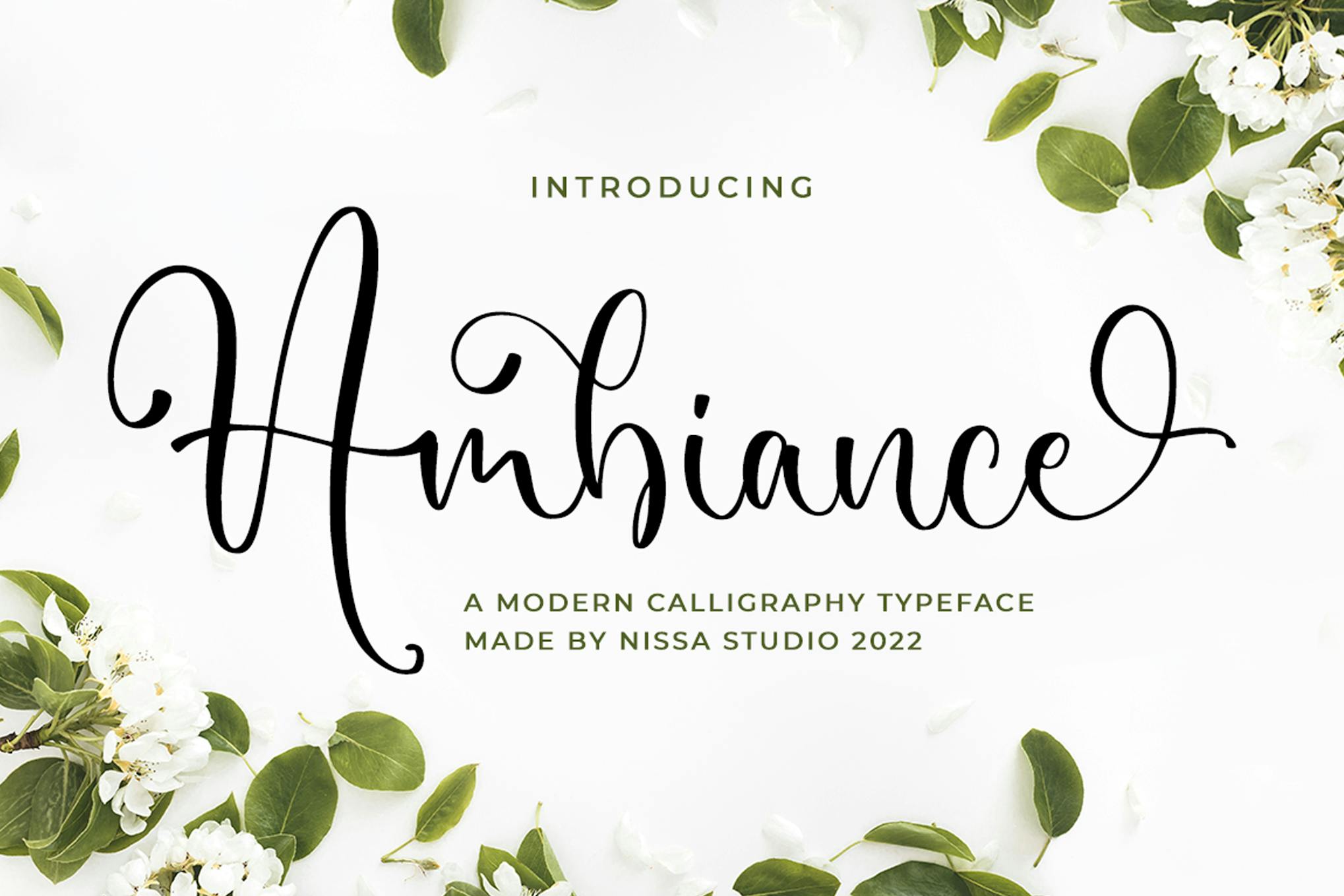
Ambiance - Wedding Font
The Ambiance - Wedding Font excels in atmospheric design applications including mood-setting wedding invitations, atmospheric bridal branding, ambient ceremony logos, mood-enhancing product packaging, atmospheric business cards, ambient portfolios, mood-setting greeting cards, atmospheric social media graphics, ambient event signage, and mood-enhancing marketing materials. Its atmospheric script style makes it perfect for projects requiring ambient elegance that communicates mood and establishes atmospheric brand positioning with audiences seeking ambient wedding experiences and atmospheric sophistication.
What makes the Ambiance - Wedding Font truly exciting is its exceptional ability to capture the atmospheric beauty and ambient elegance of mood-setting weddings through atmospherically crafted letterforms. The font features flowing, atmospheric strokes with ambient flourishes and mood-enhancing proportions that create a distinctly atmospheric appearance. Each character displays remarkable attention to atmospheric detail with ambient curves, mood-setting connections, and atmospheric spacing that give text a beautifully ambient, hand-lettered quality. The font's atmospheric character and ambient rhythm create an atmosphere of mood-setting elegance while maintaining atmospheric sophistication and wedding authenticity.
The Ambiance - Wedding Font family typically includes regular weight with extensive character coverage, featuring uppercase and lowercase letters, numerals, punctuation marks, and international characters. The typeface often incorporates stylistic alternates, contextual ligatures, and atmospheric swashes that enhance its signature ambiance. These additional elements provide designers with creative flexibility to customize text appearance and achieve more natural-looking ambient handwriting that reflects the font's atmospheric and mood-setting character.
This atmospheric signature font distinguishes itself through its remarkable balance of ambient charm and sophisticated elegance. Unlike flat or lifeless fonts that lack atmospheric appeal, Ambiance - Wedding Font embraces the power of ambient design to create atmospheric connections with mood-setting wedding audiences. The font's atmospheric character makes it essential for ambient wedding planners, atmospheric brands, and mood-enhancing celebration businesses where creating atmospheric wedding experiences and ambient memories is fundamental to success in mood-setting wedding markets.
Ambiance is a beautiful script font. Its refined style will give an elegant and modern look to any of your creative projects such as logos, branding, invitations, stationery, wedding designs, social media posts, and many more! What's Included: Ambiance - TTF, OTF, WOFF PUA encoded = Accessible in the Adobe Illustrator, Adobe Photoshop, Adobe InDesign, even work on Microsoft Word. PUA Encoded Characters - Fully accessible without additional design software. Each Font Has: Modern Handwritten Font Beautiful Swash (Ending tail) Beautiful Titling (Beginning tail) Special Ligatures Multilingual Support